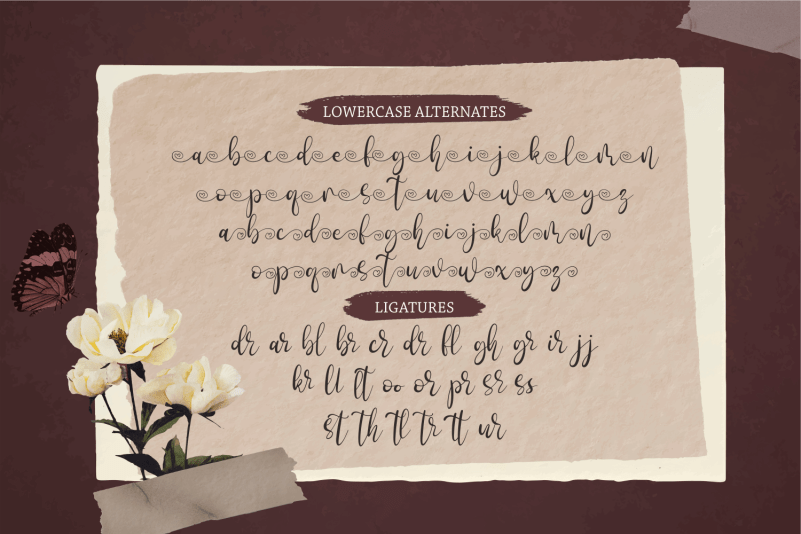
Sightli Font
Sightli Calligraphy Font – a Chic and Lovely Script Font. Sightli has a modern and elegant style perfect for weddings, branding projects, logos, invitations, master heads, and more.